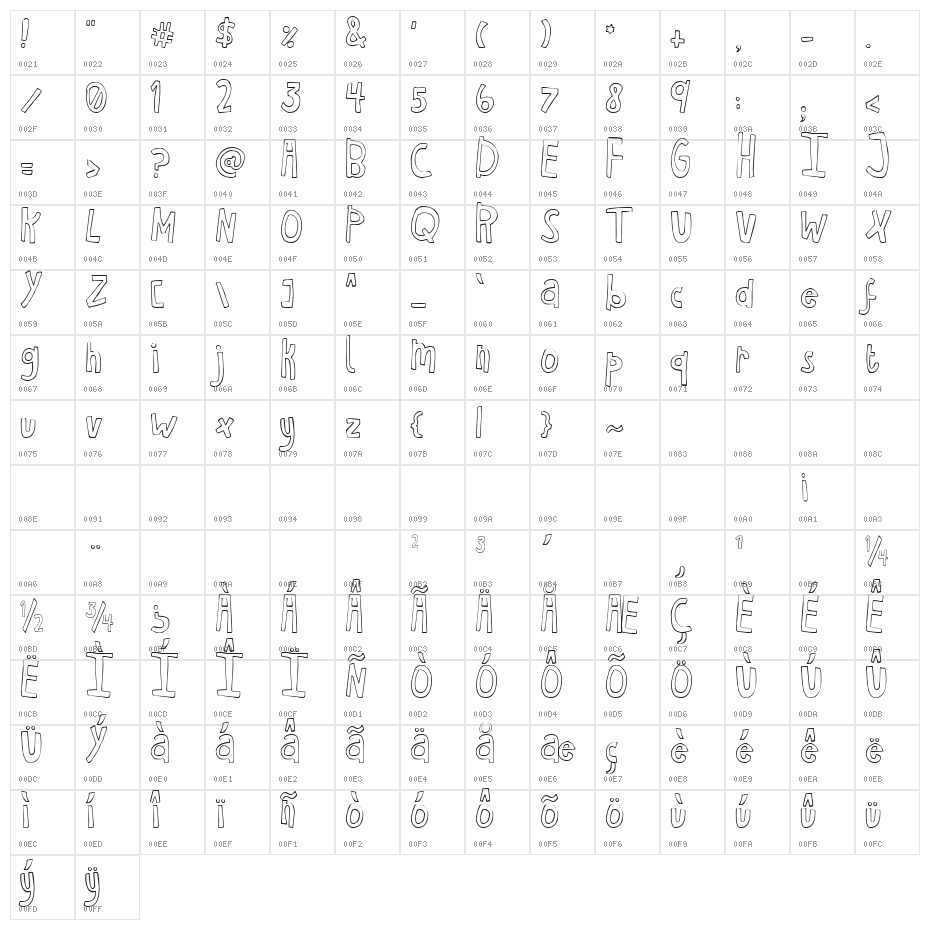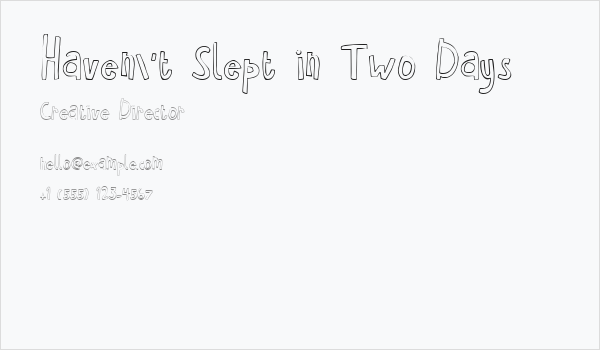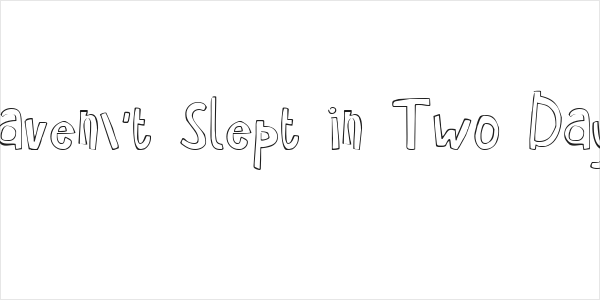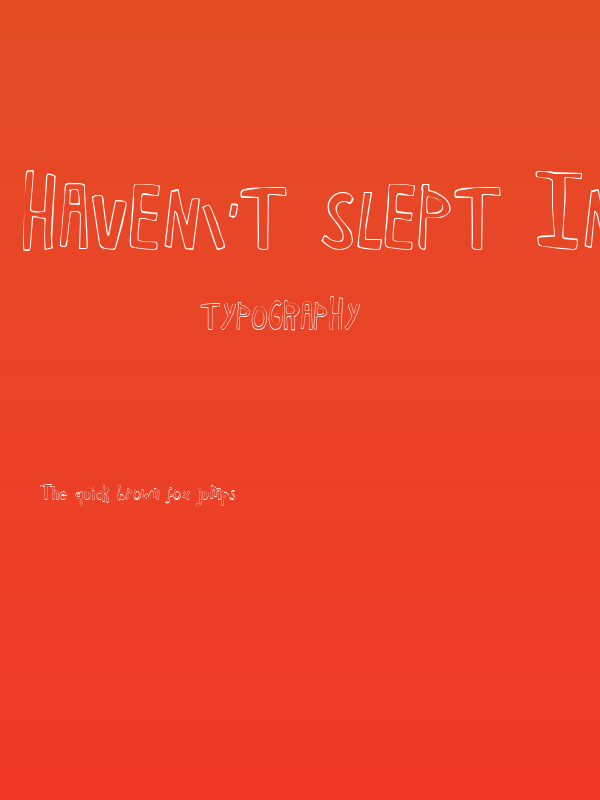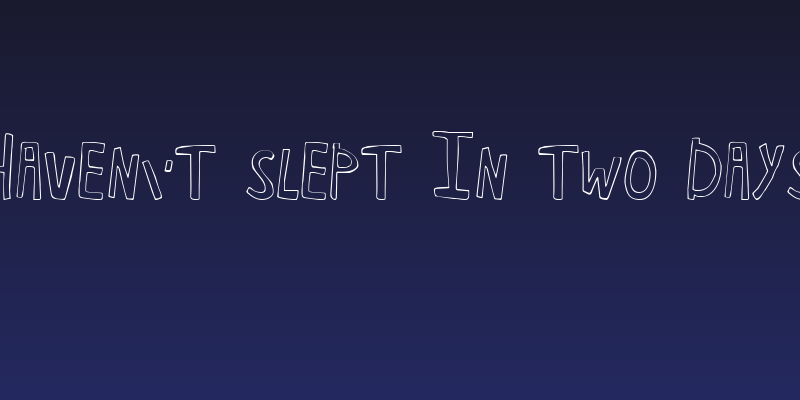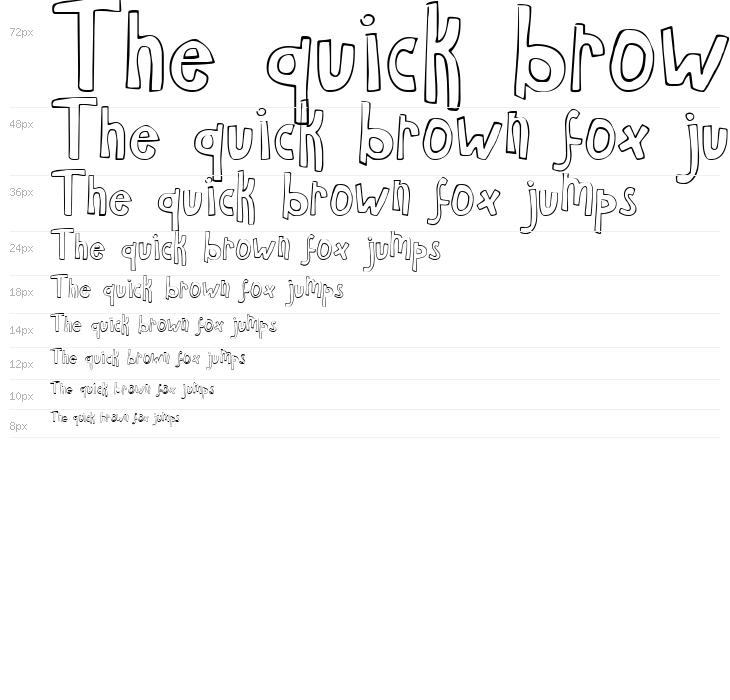
Haven't Slept in Two Days Font
Haven't Slept in Two Days Description
This playful and quirky font features a hand-drawn style with uneven lines and a casual, relaxed appearance. The letters are outlined, giving them a bold presence while maintaining a lighthearted feel. Each character has a unique, slightly irregular shape, adding to the font's charm and individuality. The uppercase and lowercase letters are distinct yet harmonious, and the numbers and special characters follow the same whimsical design. This font is perfect for projects that require a fun and informal touch, such as children's books, greeting cards, or creative posters.